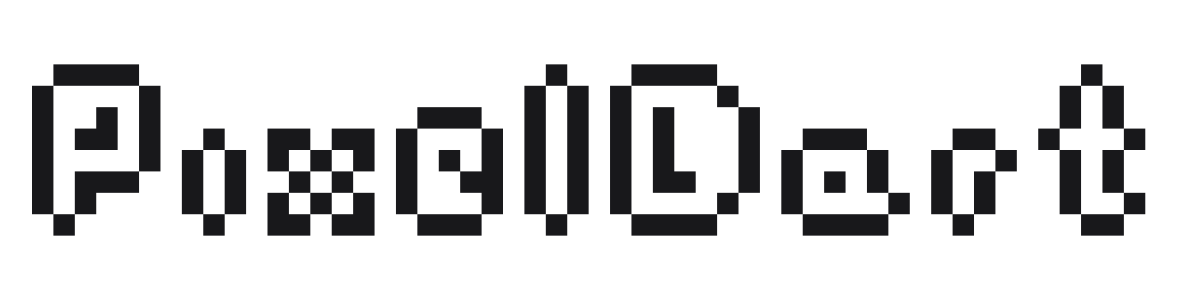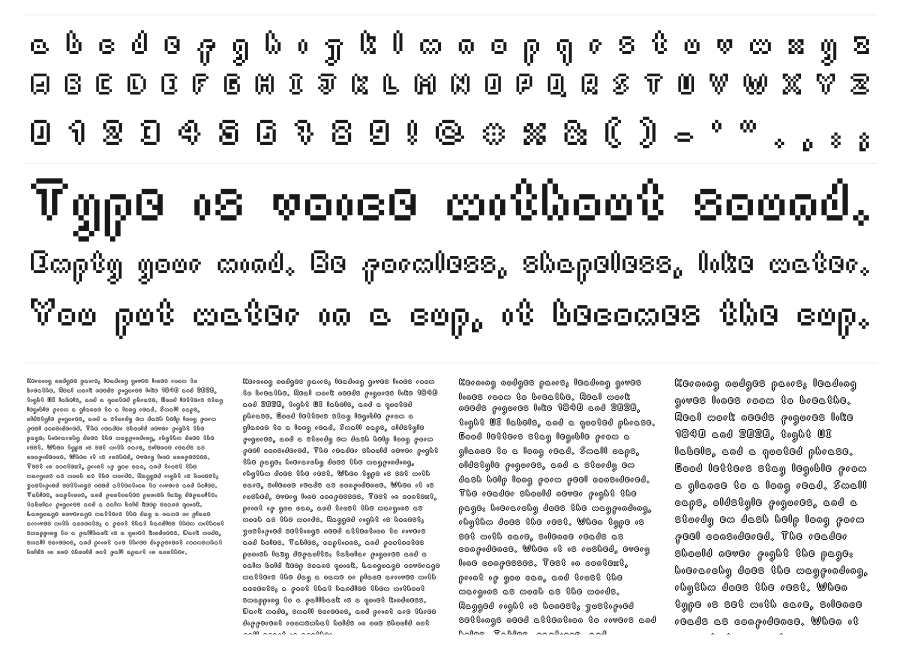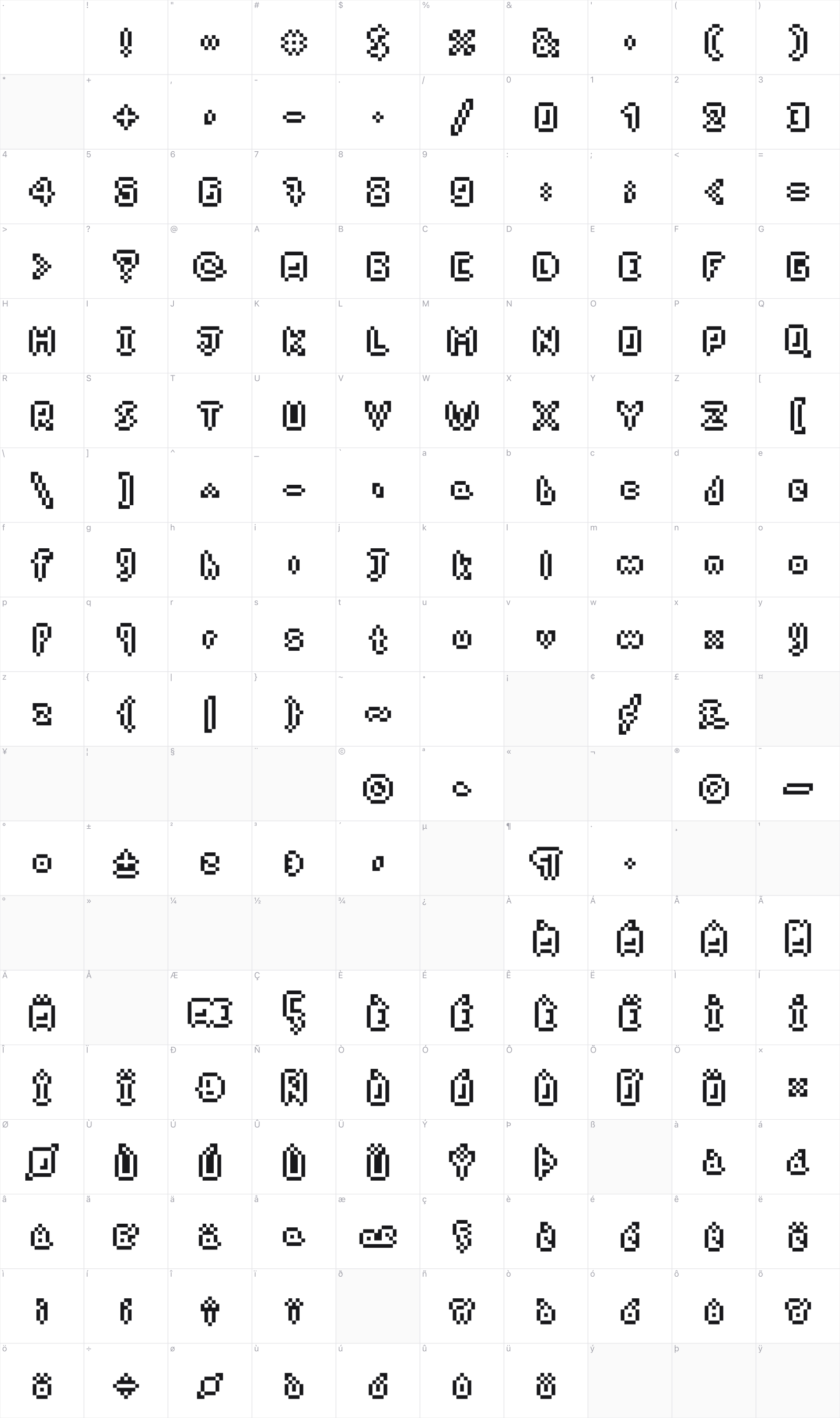
PixelDart
by MrtheNoronha
PixelDart is a bold pixel-art display font built from square modules with rounded corners, channeling classic 8-bit video game aesthetics. Each character has a chunky, hand-crafted quality within the grid, with enough personality to stand out in gaming titles, app interfaces, or retro-themed branding. Created by Daniel Noronha.